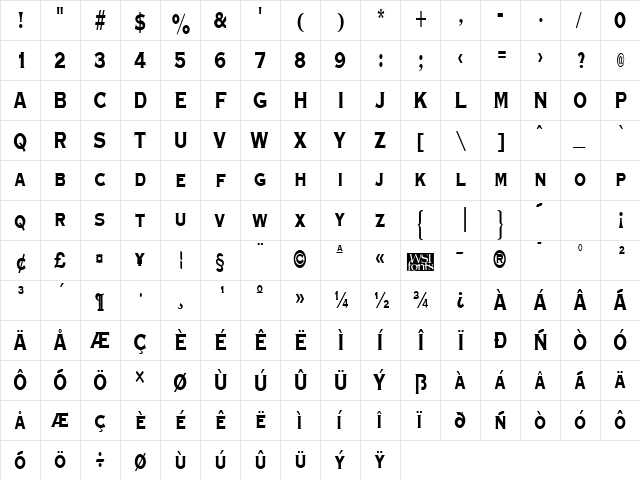
GraverplateNarrowXbold Regular Font Preview
Design Context for GraverplateNarrowXbold Typeface
GraverplateNarrowXbold takes a measured approach to typography — its balanced proportions and neutral character make it a reliable workhorse for both digital and print work. Its bold stroke weight gives it real presence on the page. Its narrow stance lets it pack a punch even in space-constrained designs.